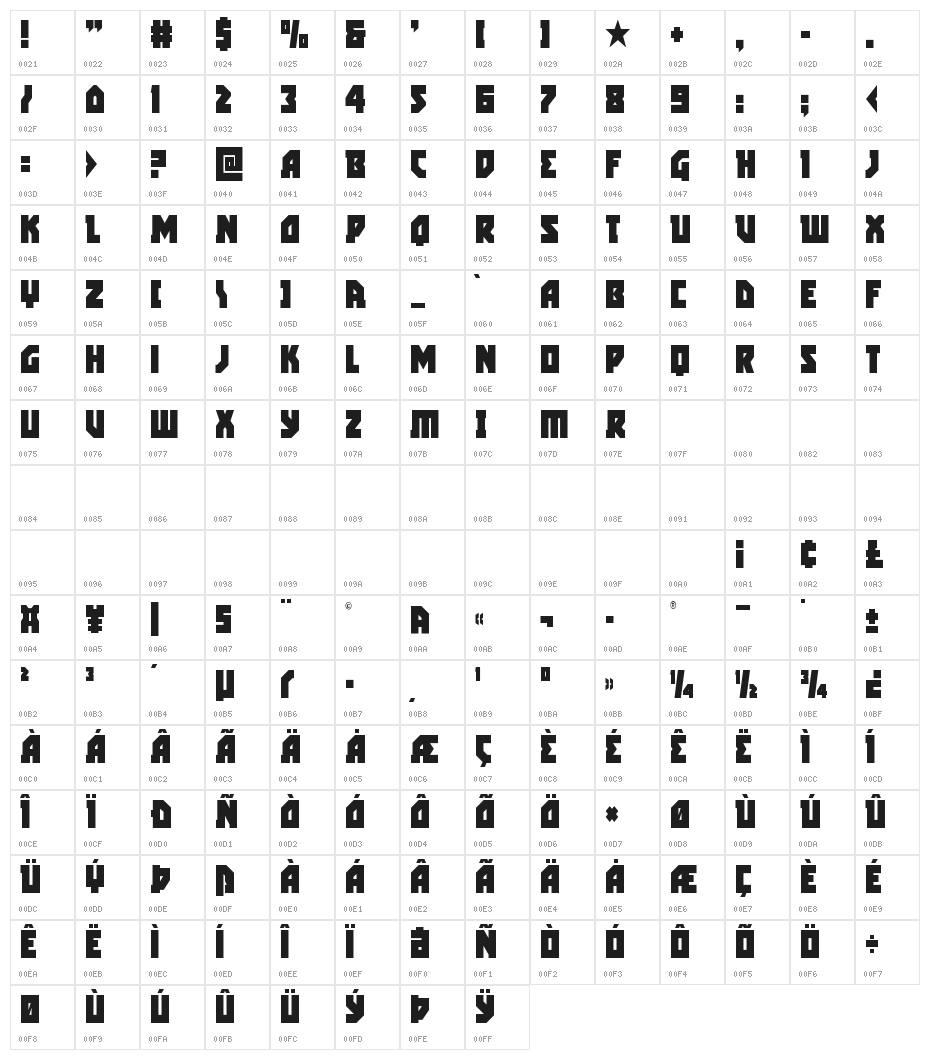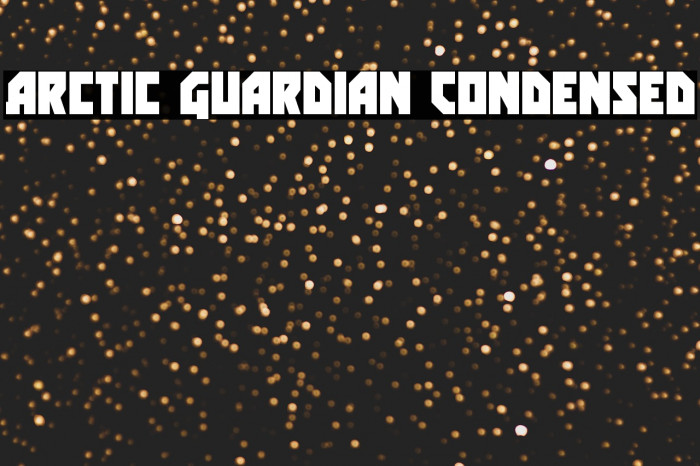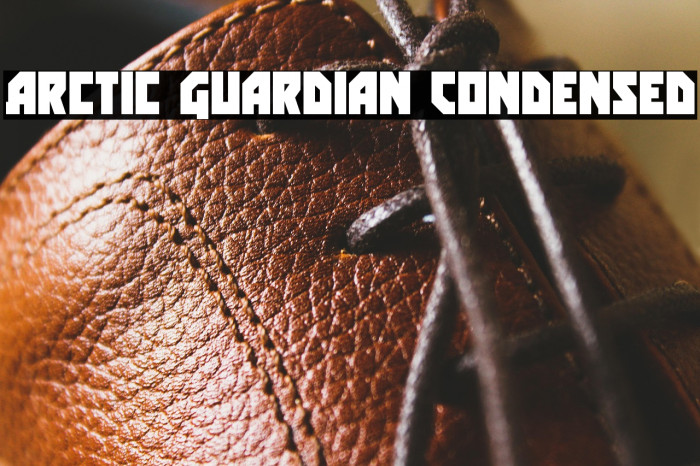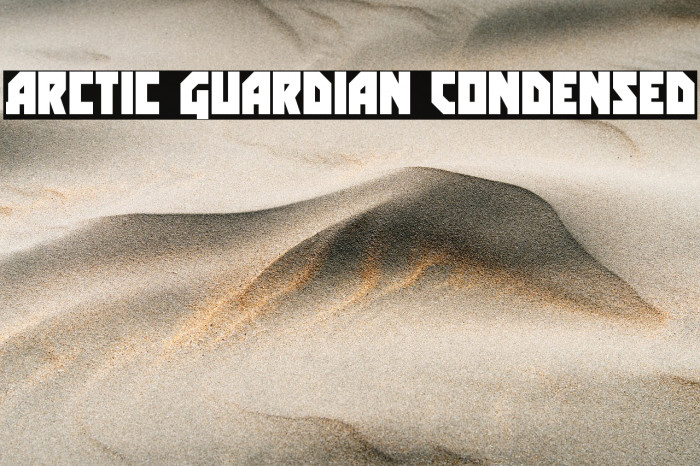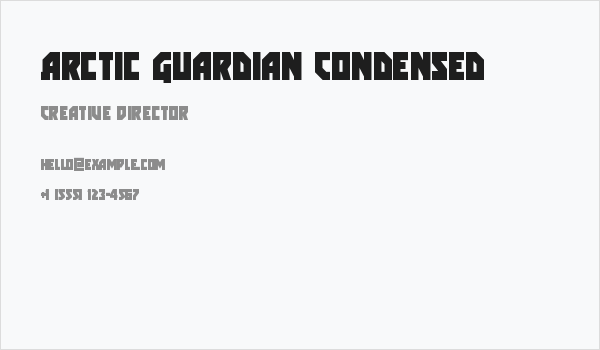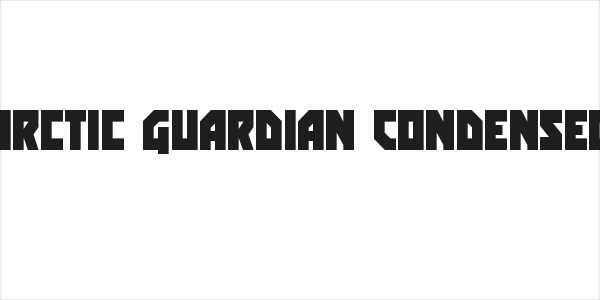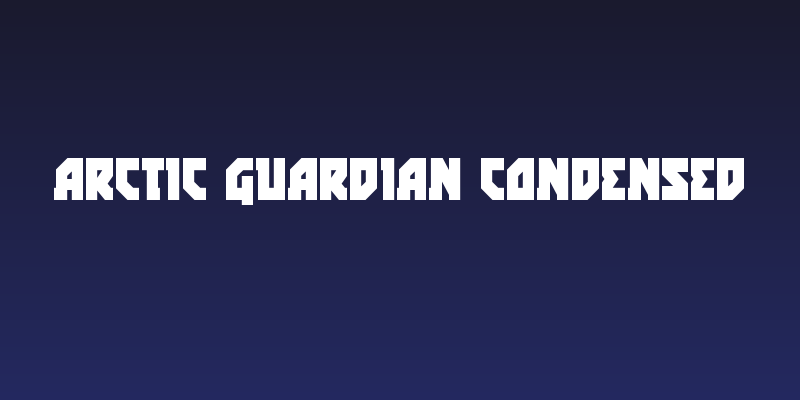
Arctic Guardian Condensed Font
Arctic Guardian Condensed Description
This font features a bold, geometric design with a strong presence. The characters are constructed with sharp angles and straight lines, giving it a futuristic and industrial feel. The uppercase and lowercase letters are consistent in style, maintaining a uniform appearance across the board. The numbers and special characters follow the same design principles, ensuring a cohesive look. The condensed width of the font allows for efficient use of space, making it suitable for headlines and impactful text. The high contrast between the thick strokes and the negative space enhances readability and adds to its striking visual appeal.
| Proposed Projects | Ideal for use in sci-fi themed projects, video game titles, posters, and branding that requires a strong, modern aesthetic. |